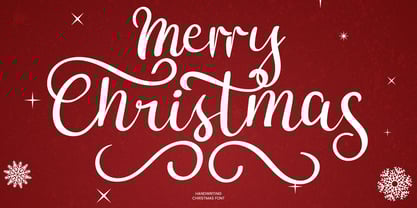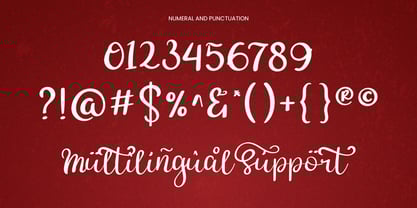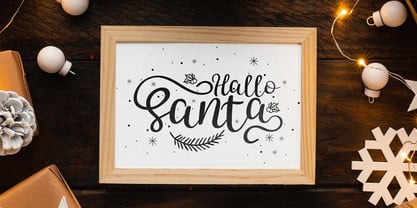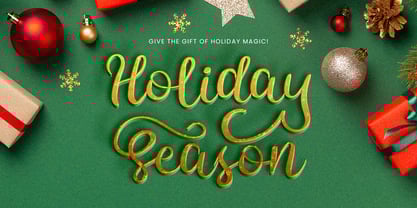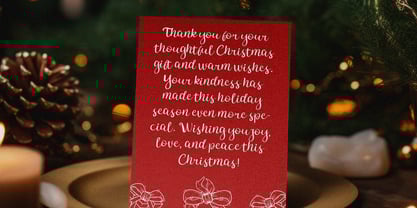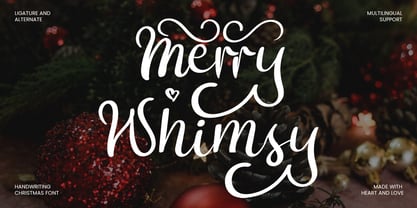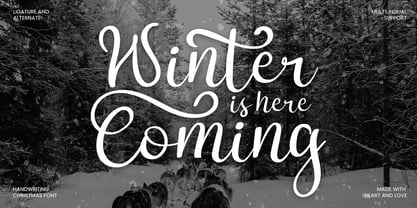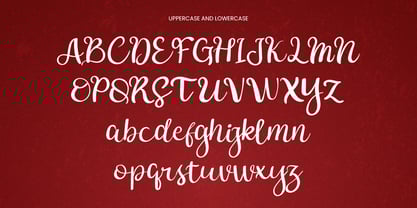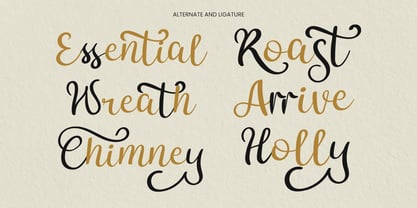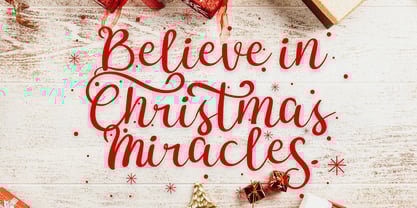
Merry Whimsy
by Inviline
The Merry Whimsy Font Family was designed by Virgiawan Listanto and published by Inviline. Merry Whimsy contains 1 styles.
Merry Whimsy is a cheerful handwritten Christmas font crafted with swirls, hearts, and holiday magic—designed to bring warmth and wonder to any festive project. This font includes uppercase and lowercase letters, punctuation, numerals, ligatures, alternates, and multilingual support. What you get in this all characters showcased, plus stylistic alternates for extra flair. Perfect for holiday cards, gift tags, festive branding, packaging, crafts, social media posts, and any cozy winter-themed design that needs a touch of handwritten charm with a magical, whimsical feel.